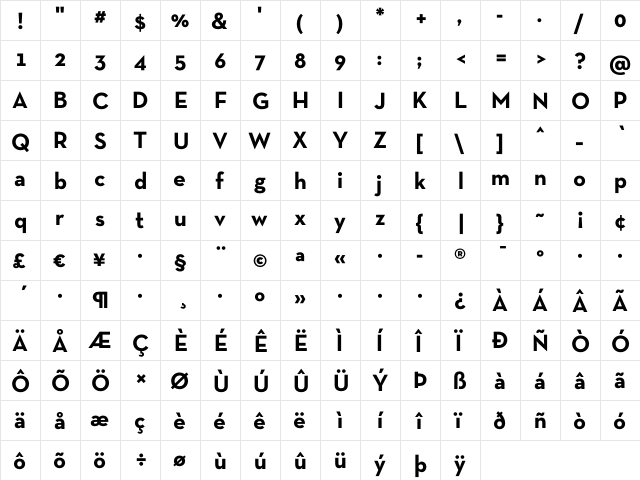
Neutra Text TF Bold
| Designer | Christian Schwartz |
Design Context for Neutra Text TF Typeface
Neutra Text TF takes a measured approach to typography — its balanced proportions and neutral character make it a reliable workhorse for both digital and print work. The heavy weight commands attention and anchors typographic hierarchies.